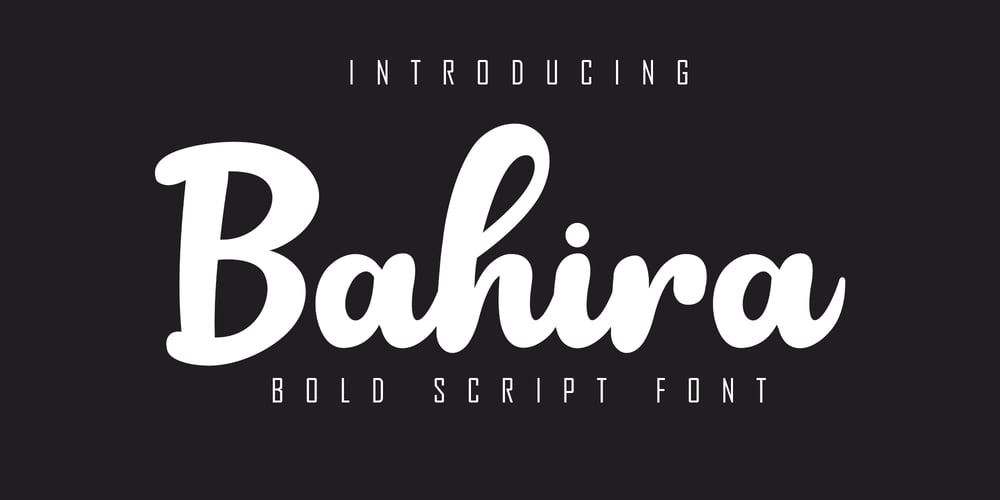
Bahira Font Family was designed by Irfan Mahmudin and published by Skiiller Studio. Bahira contains 1 styles and family package options. Bahira is a minimalistic and beautiful bold script font that is perfect for commercial needs and supports your design efforts